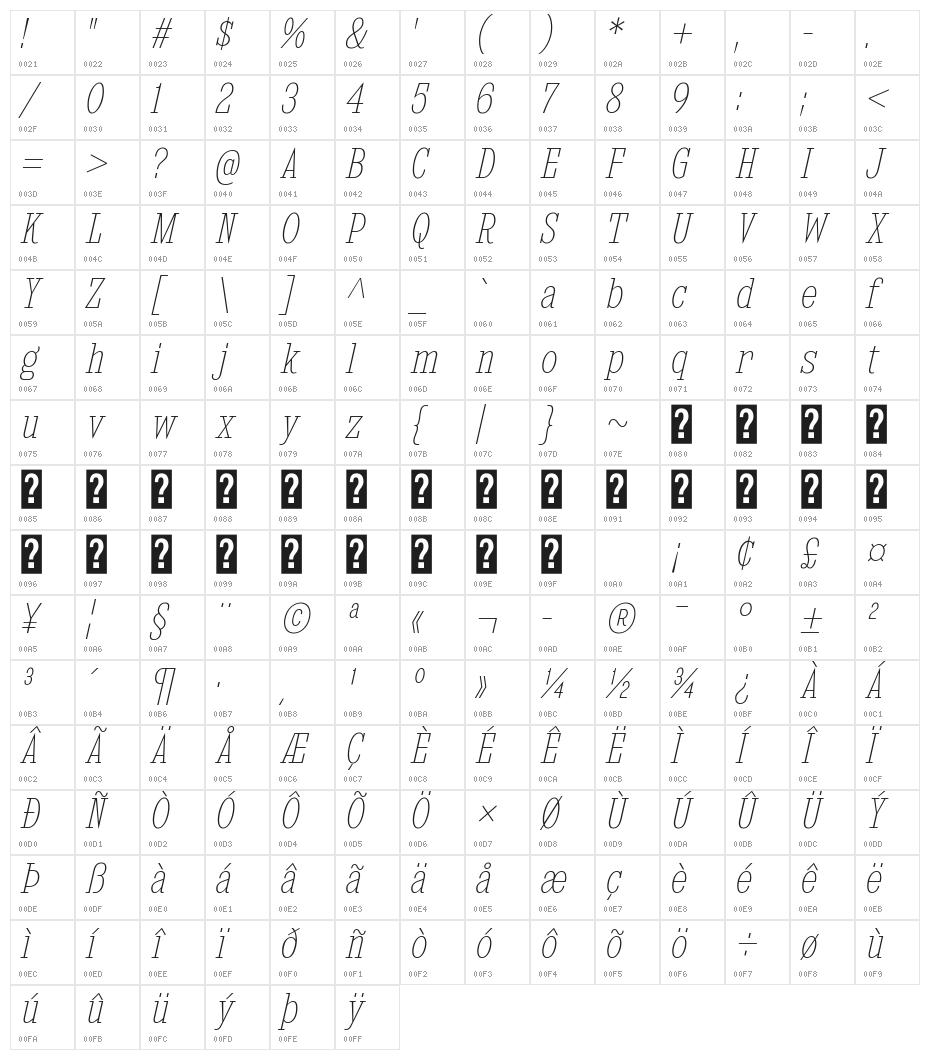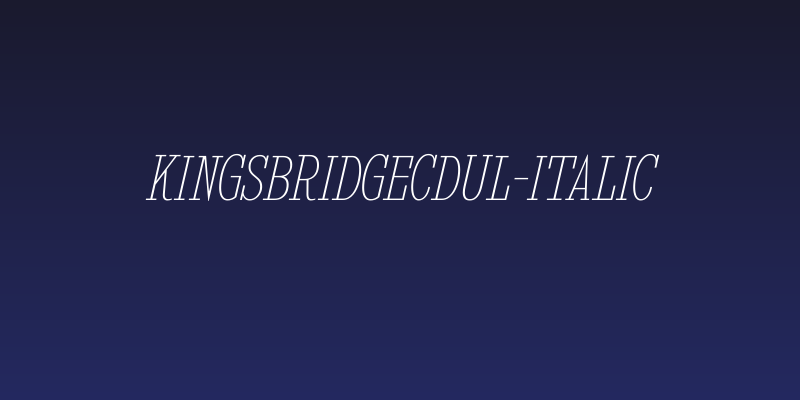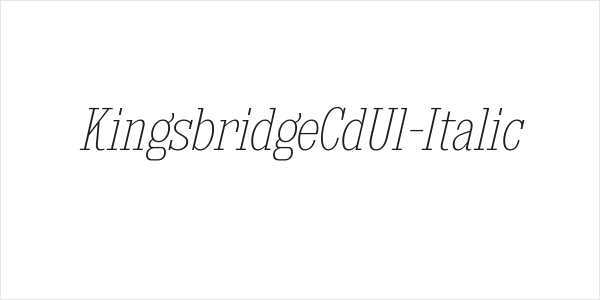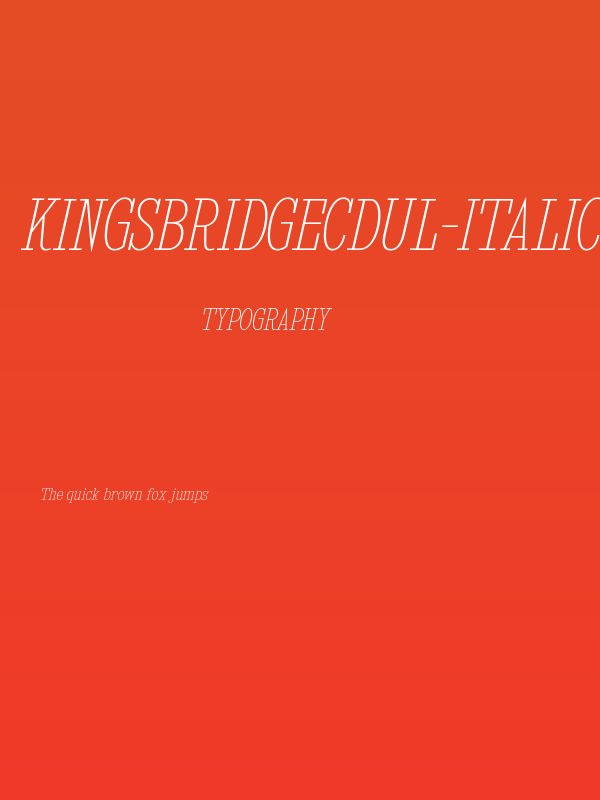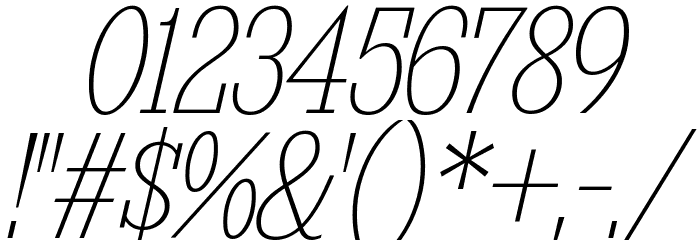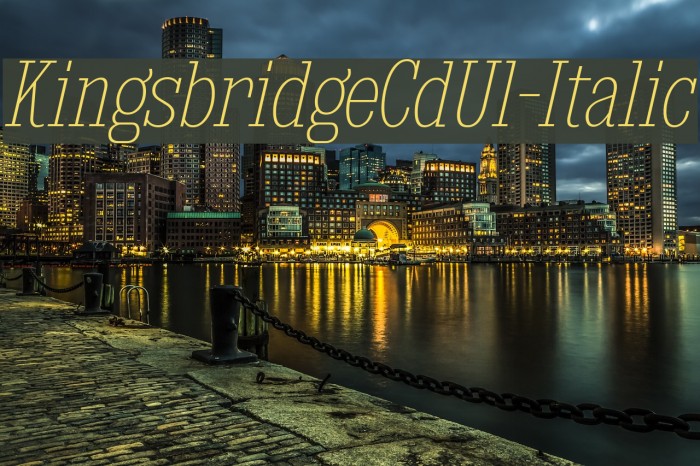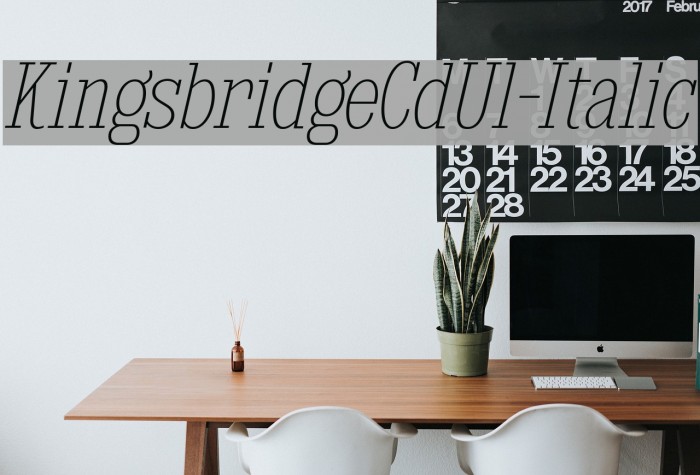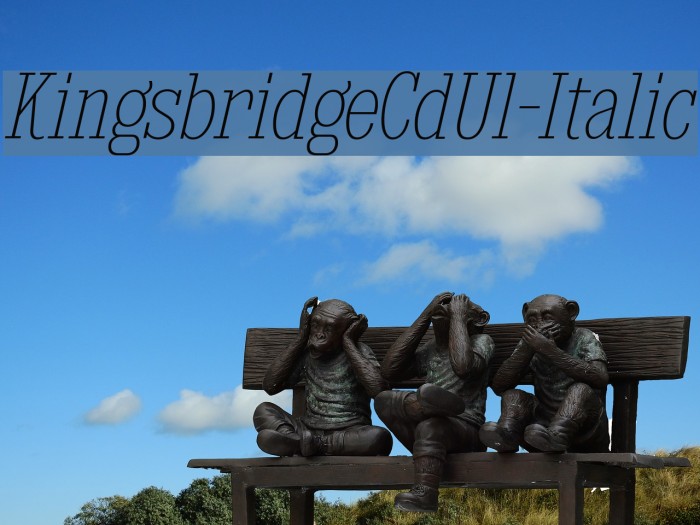
KingsbridgeCdUl-Italic Font
KingsbridgeCdUl-Italic Description
This font features a classic serif style with an elegant italic slant, giving it a sophisticated and timeless appearance. The characters are well-defined with thin, graceful strokes and subtle serifs that add a touch of refinement. The uppercase letters are tall and commanding, while the lowercase letters maintain a consistent flow, enhancing readability. The numerals are proportionate and blend seamlessly with the alphabetic characters. Special characters are thoughtfully designed, maintaining the overall aesthetic. This font's delicate yet clear presentation makes it suitable for a variety of formal and creative applications.
| Width | Condensed |
| Overall Style | Classic |
| Use Case | Headlines, Body text, Logos |
| Proposed Projects | Ideal for wedding invitations, formal documents, luxury branding, and editorial design. |